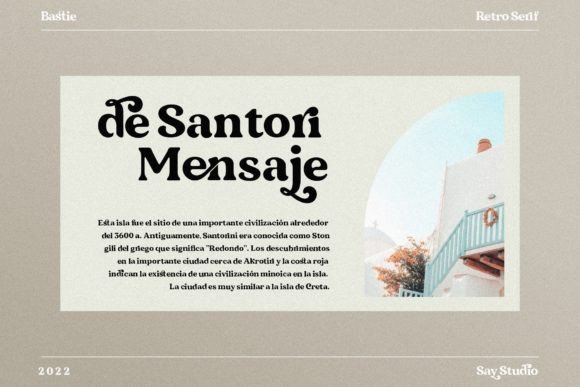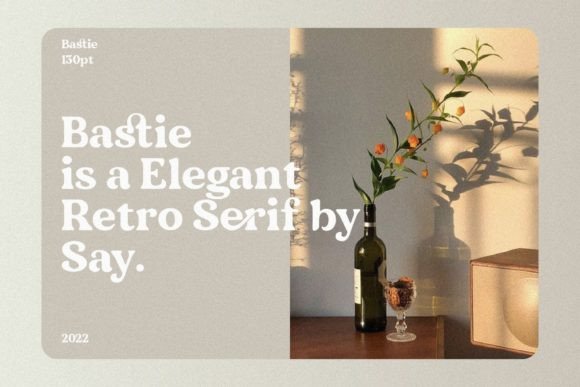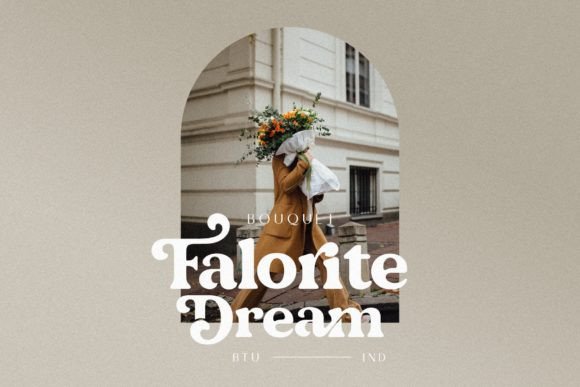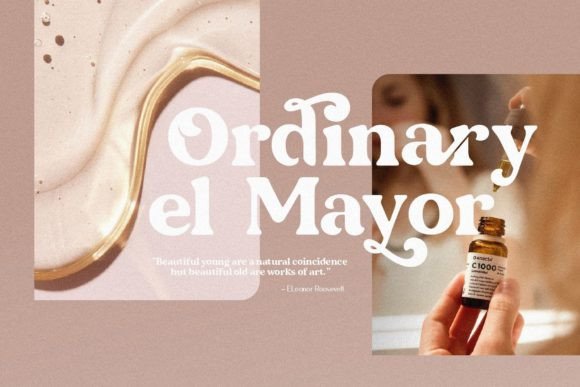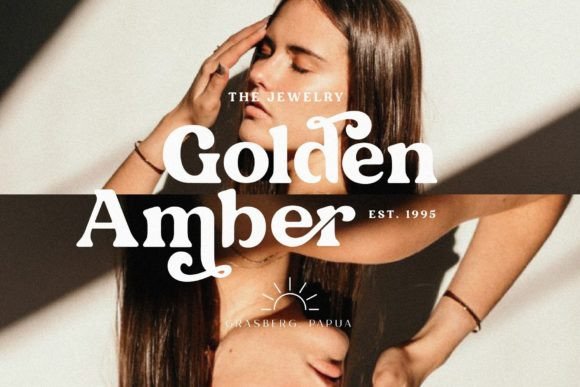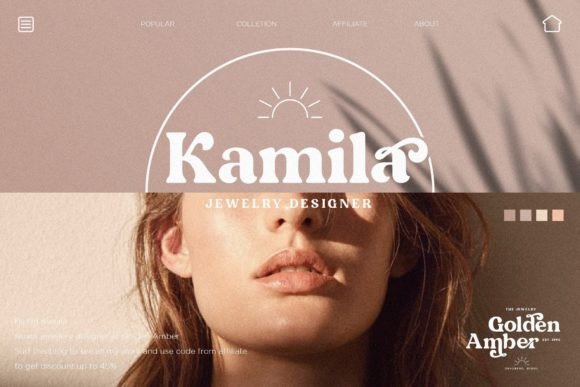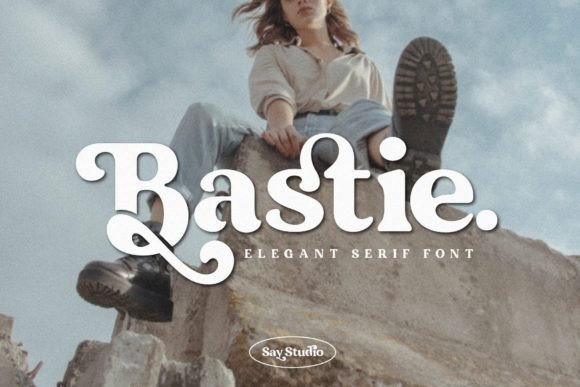
Bastie Font: Elevate Your Designs with Elegance and Sophistication
In the world of typography, a font can make or break a design. It’s the foundation upon which the entire visual identity is built. For designers and crafters seeking to create something truly remarkable, the Bastie Font is an exceptional choice. This elegant and stylish serif font is poised to transform your projects into standout masterpieces.
The Essence of Bastie Font
Bastie is more than just a font; it’s a statement of sophistication and refinement. Its unique style is meticulously crafted to add a touch of elegance to any design, making it perfect for projects that demand a high level of visual appeal. Whether you’re working on a luxury brand identity, a high-end product packaging, or a sophisticated editorial layout, Bastie Font is designed to impress.
Key Features of Bastie Font
- Elegant Serif Design: Bastie boasts a classic serif design with a modern twist, making it versatile for a wide range of applications.
- Sophisticated and Unique Style: Its distinctive style ensures that your projects stand out from the crowd, offering a fresh and contemporary look.
- PUA Encoded: Being PUA (Private Use Area) encoded, Bastie allows easy access to all glyphs and swashes, providing designers with the flexibility to experiment and create unique compositions.
Advantages for Designers and Crafters
Bastie Font offers several advantages that make it a go-to choice for designers and crafters:
- Versatility: Suitable for a variety of projects including but not limited to, logos, branding, packaging, magazines, and websites.
- Easy to Use: Thanks to its PUA encoding, accessing and using the various glyphs and swashes is straightforward, saving designers time and effort.
- High-Quality Output: The font’s elegant design ensures that the final output is of the highest quality, capable of leaving a lasting impression on the audience.
How to Make the Most of Bastie Font
To truly leverage the potential of Bastie Font, consider the following tips:
- Experiment with Swashes: Use the swashes to add a personal touch to your designs. They can be particularly effective in headlines and quotes.
- Mix and Match: Don’t be afraid to combine Bastie with other fonts to create contrast and hierarchy in your designs.
- Pay Attention to Kerning: With a font as elegant as Bastie, ensuring proper kerning is crucial to maintain its sophisticated look.
Bastie Font is a powerful tool for designers and crafters aiming to infuse their projects with elegance and sophistication. Its unique design, coupled with PUA encoding for easy access to glyphs and swashes, makes it a versatile and valuable addition to any design arsenal. Whether you’re looking to make a bold statement or add a subtle touch of elegance, Bastie Font is sure to deliver outstanding results. Add it to your creative toolkit today and experience the transformation it brings to your designs.
With Bastie Font, you’re not just choosing a typeface; you’re elevating your design’s potential to stand out in a crowded creative landscape. Its sophisticated style, ease of use, and high-quality output make it an ideal choice for anyone looking to make a lasting impression.